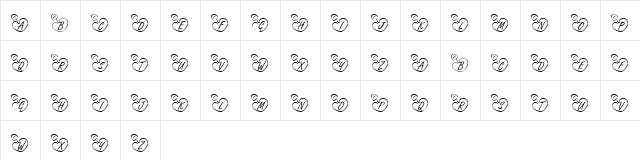
KR Online Love Regular
Design Context for KR Online Love
KR Online Love is a composed and adaptable typeface that performs quietly and consistently across a wide range of design contexts.
Pro Tip: Use KR Online Love in both headline and body roles to test its range before committing to a single application.